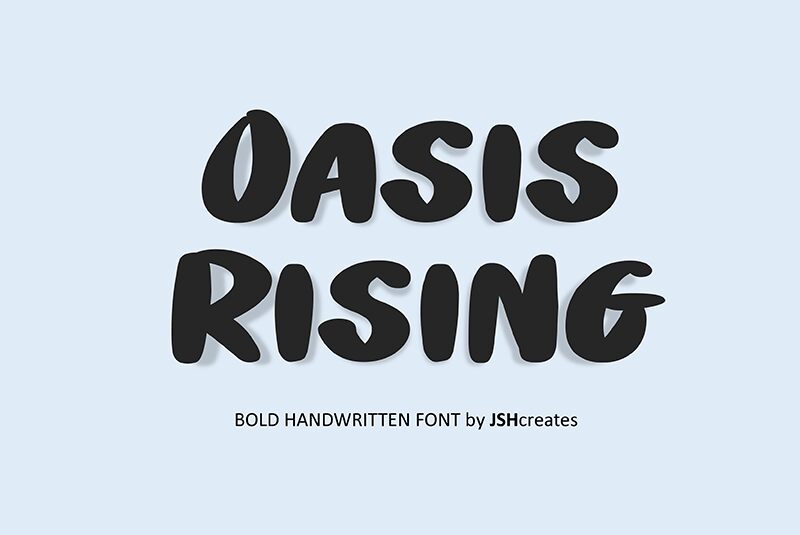
Oasis Rising font by JSH creates is a bold cartoon display font with smooth organic letter shapes that show a touch of groove. It’s gifted with a retro quality that gives each glyph a unique character, ideal for inviting readers in, adding a touch of vintage design, and summoning nostalgia. Designers will find it approachable for any project they’re working on.